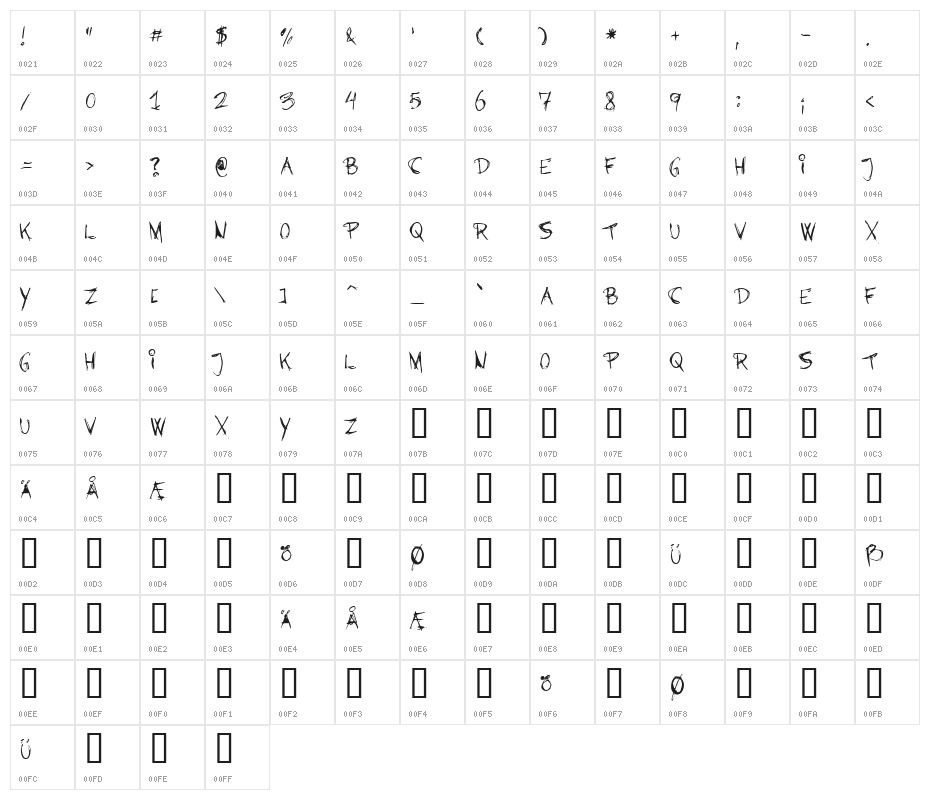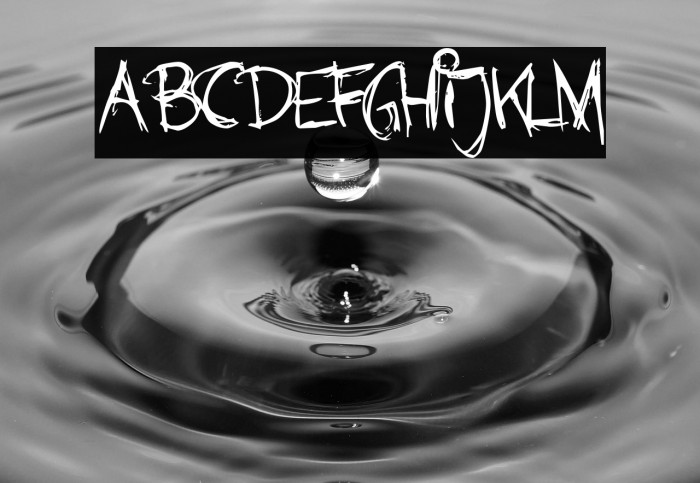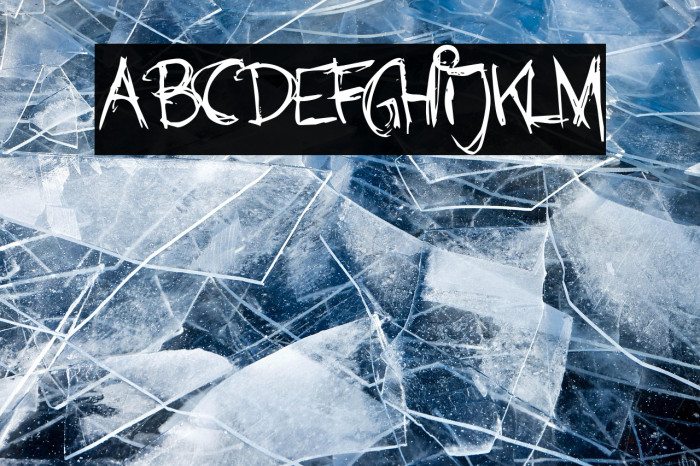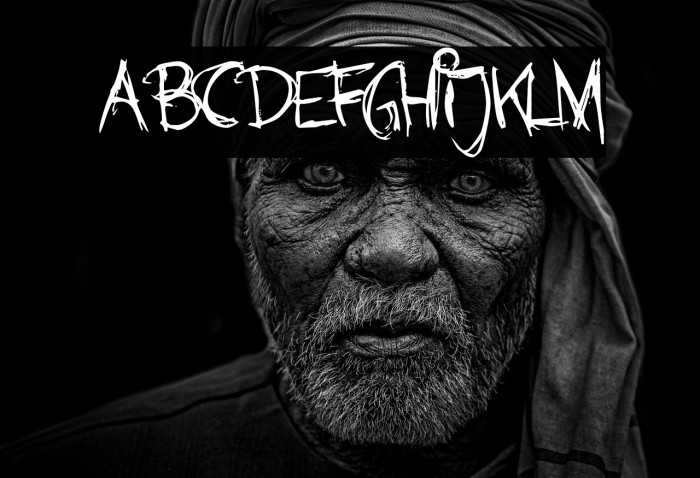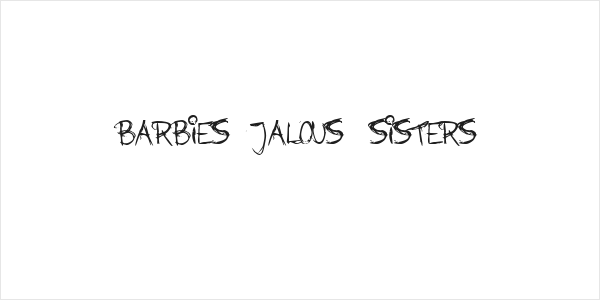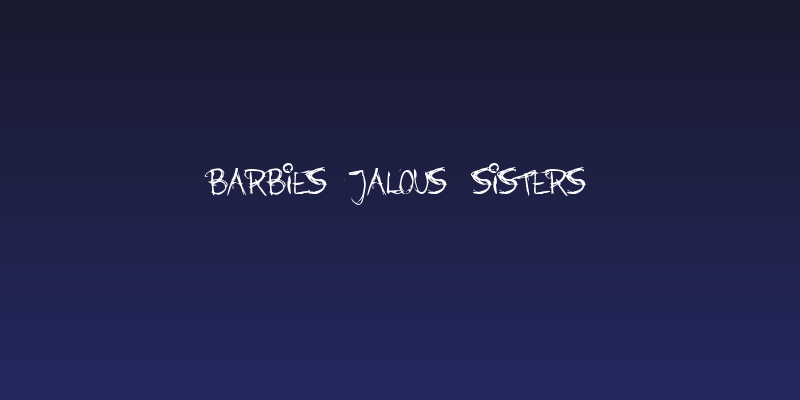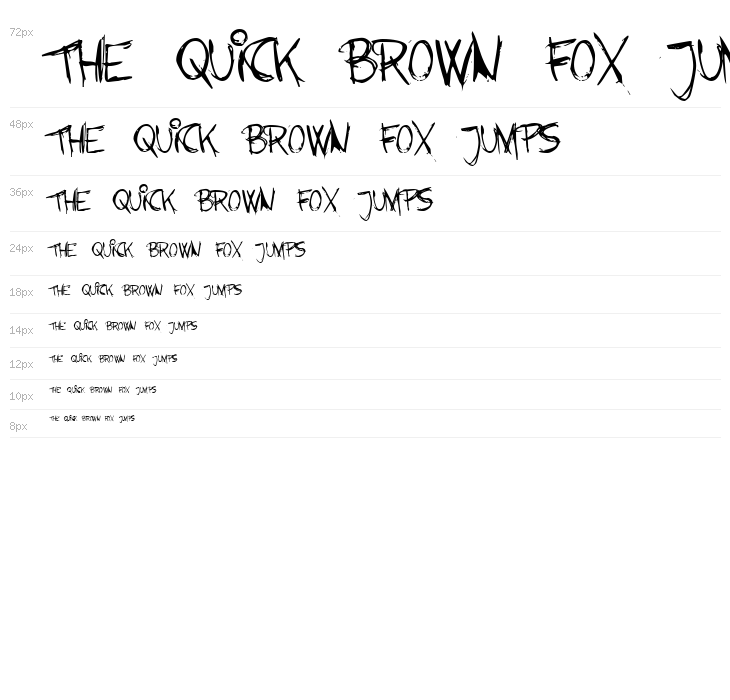
Barbies Jalous Sisters Font
Barbies Jalous Sisters Description
This font features a bold, edgy design with a hand-drawn appearance, characterized by sharp, jagged edges and irregular strokes. The letters have a distressed, grunge-like texture that gives them a rebellious and dynamic feel. The uppercase and lowercase letters maintain a consistent style, with exaggerated angles and a slightly chaotic arrangement. Numbers and special characters follow the same aesthetic, ensuring a cohesive look across all elements. This font is ideal for projects that require a bold statement or an alternative, punk-inspired vibe.
| Proposed Projects | Album covers, event posters, streetwear branding, and edgy graphic designs. |